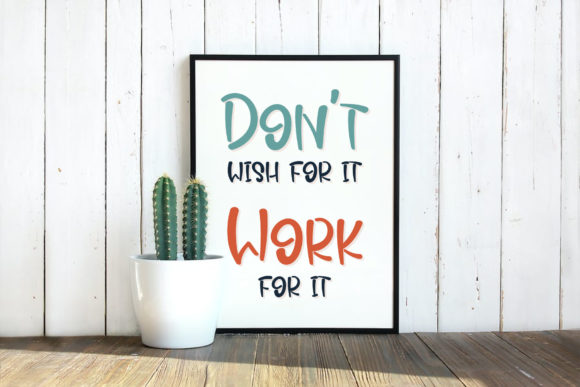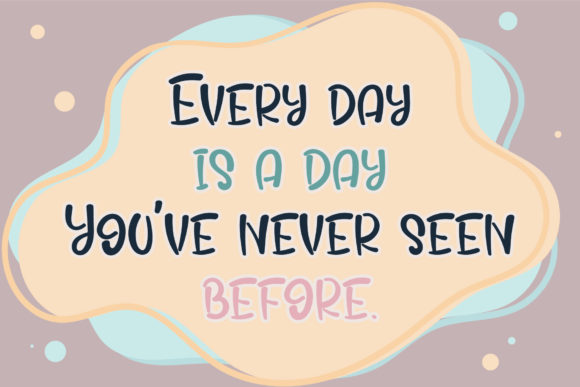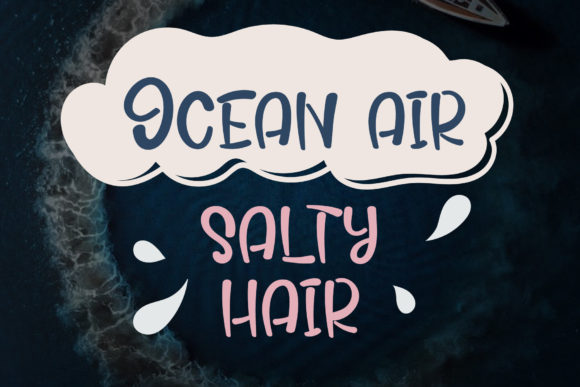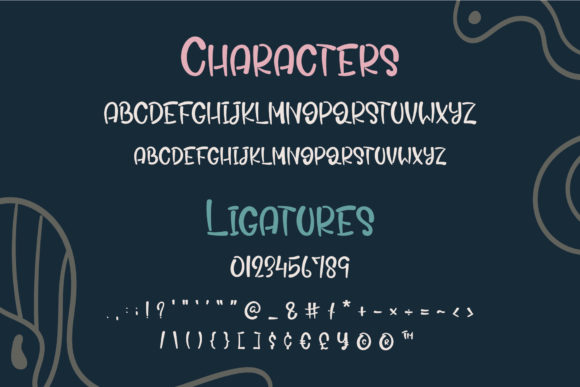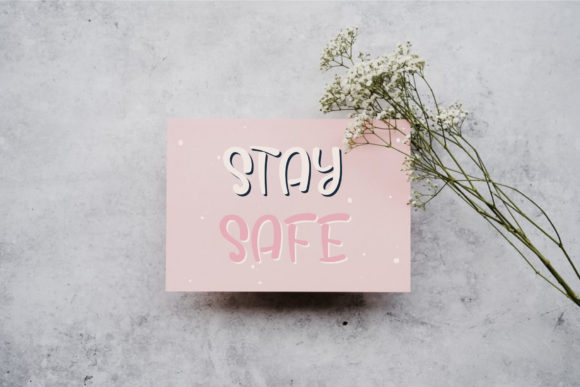
Introduction to Run Faster Font
Run Faster is a simple, quirky and adaptable handwritten font.
Its informal style and casual vibe will make this font a go-to choice for each of the creations that require a relaxed touch .
Key Features of Run Faster Font
Why Choose Run Faster Font?